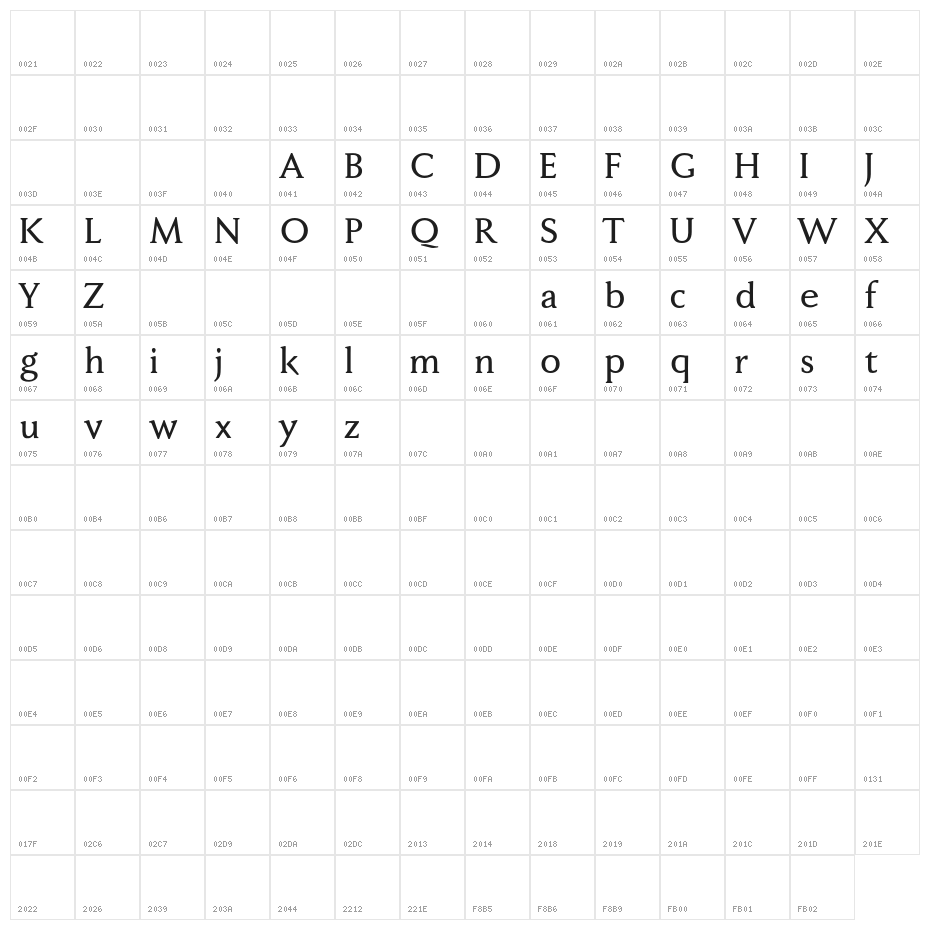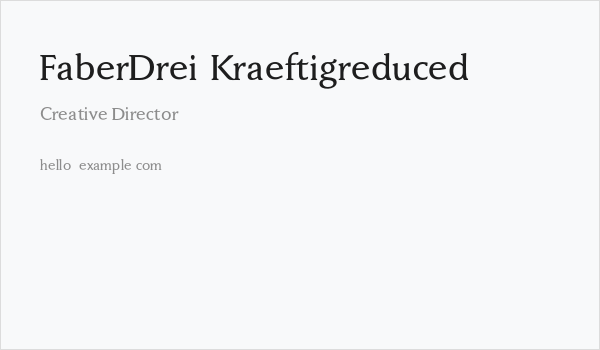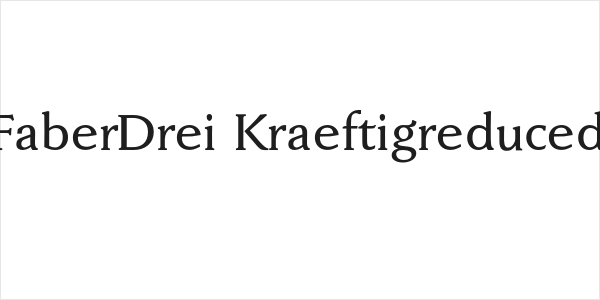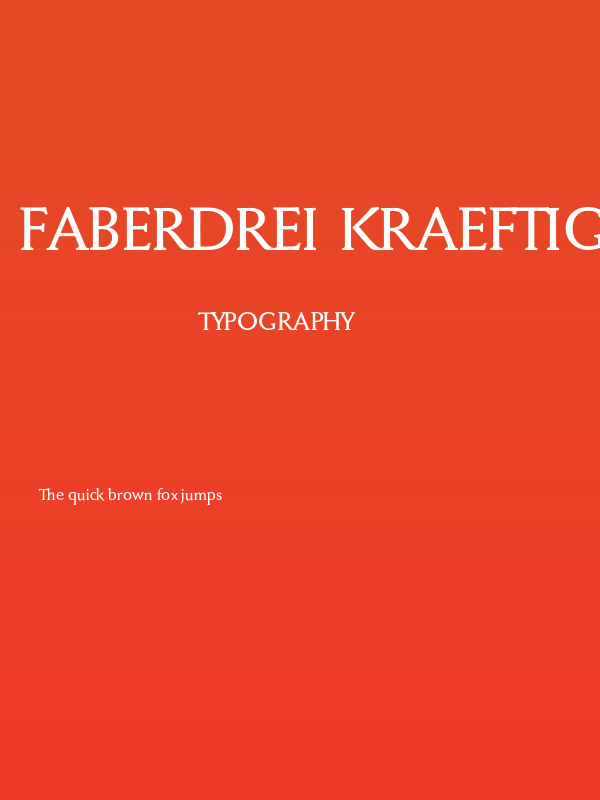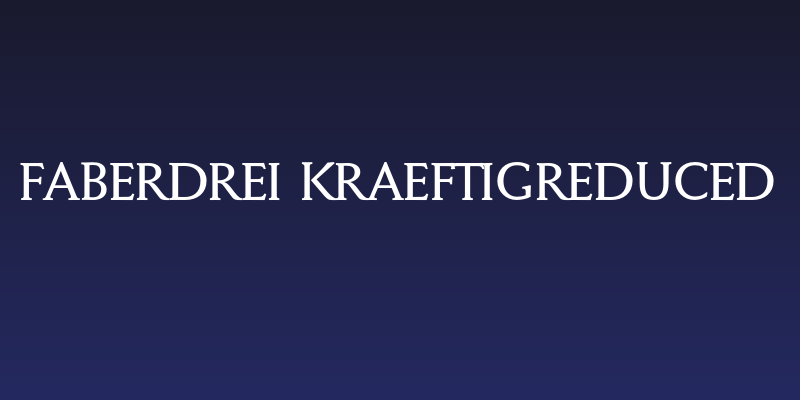
FaberDrei-Kraeftigreduced Font
FaberDrei-Kraeftigreduced Description
This font features a classic serif style with elegant, slightly flared strokes that give it a timeless and sophisticated appearance. The uppercase letters are well-proportioned, with a traditional feel that is both formal and approachable. The lowercase letters maintain a consistent style, with smooth curves and balanced proportions. The numerals are clear and easy to read, making them suitable for a variety of applications. Special characters are designed with the same attention to detail, ensuring a cohesive look across all glyphs. This font is versatile, suitable for both print and digital media, and can be used in a wide range of projects.
| Proposed Projects | Ideal for book covers, editorial design, branding, and formal invitations. |